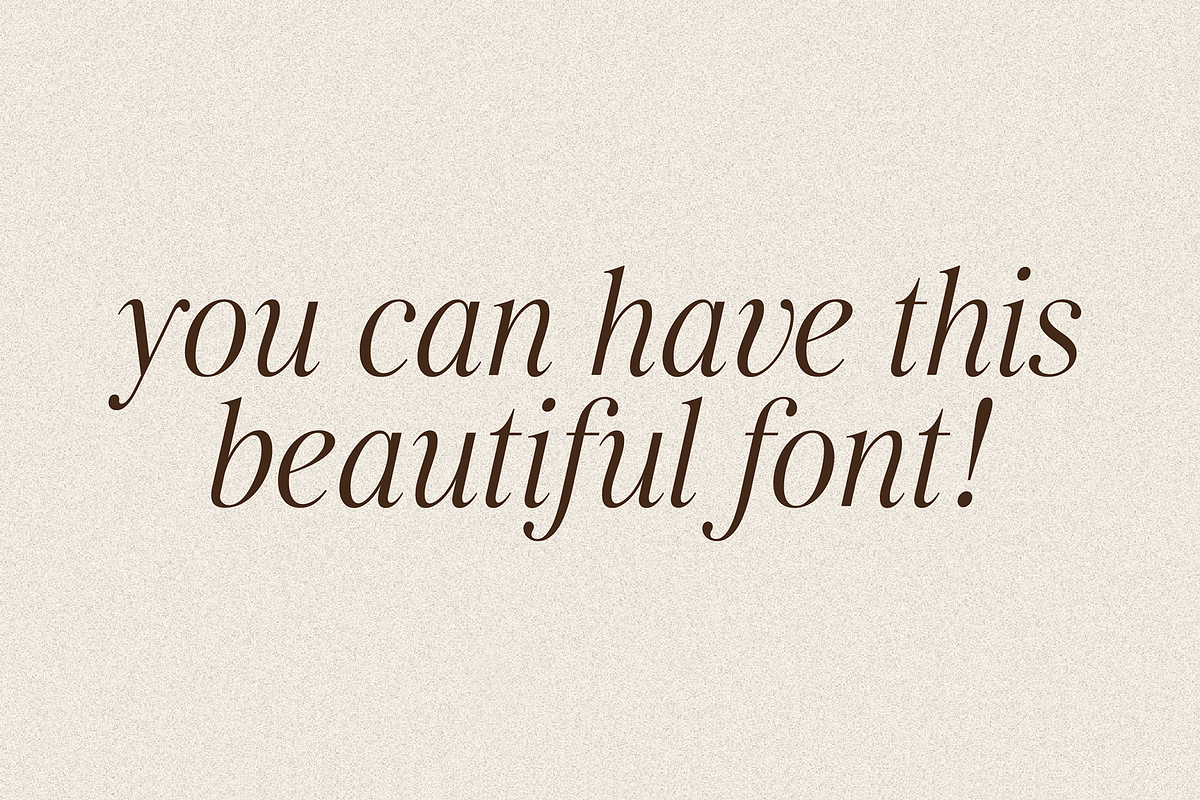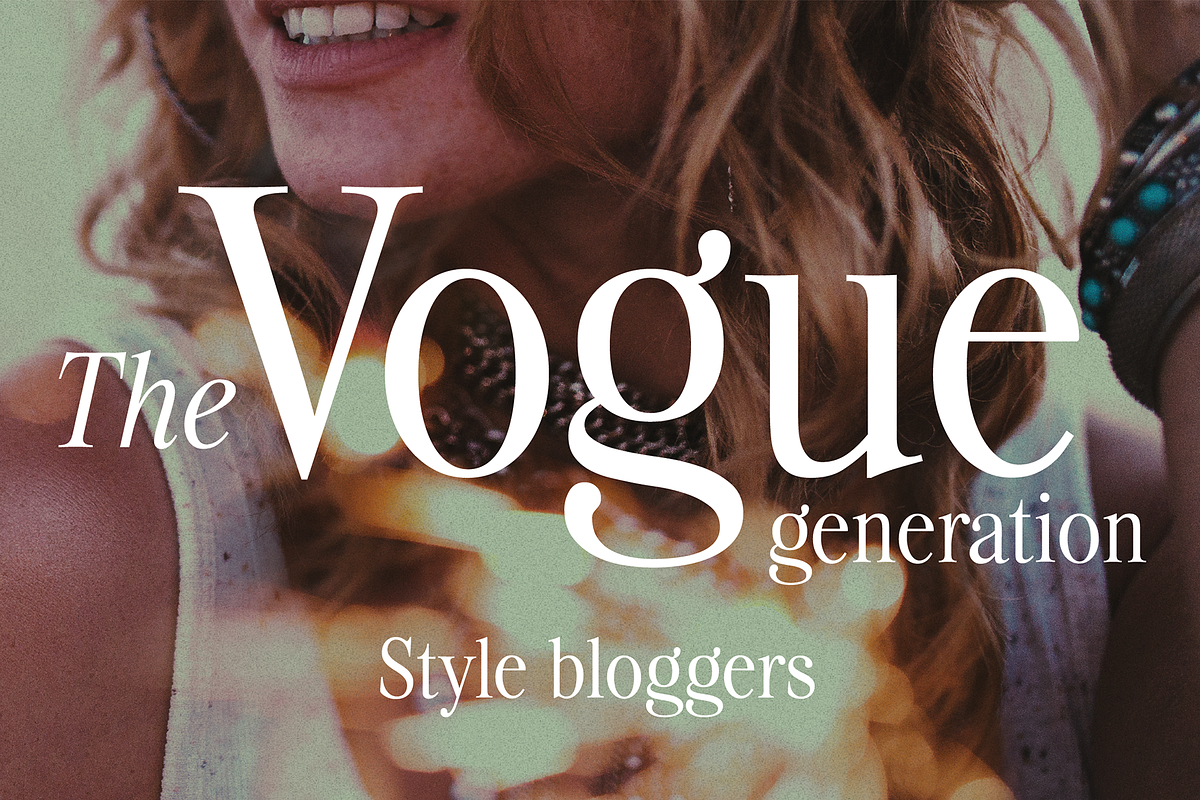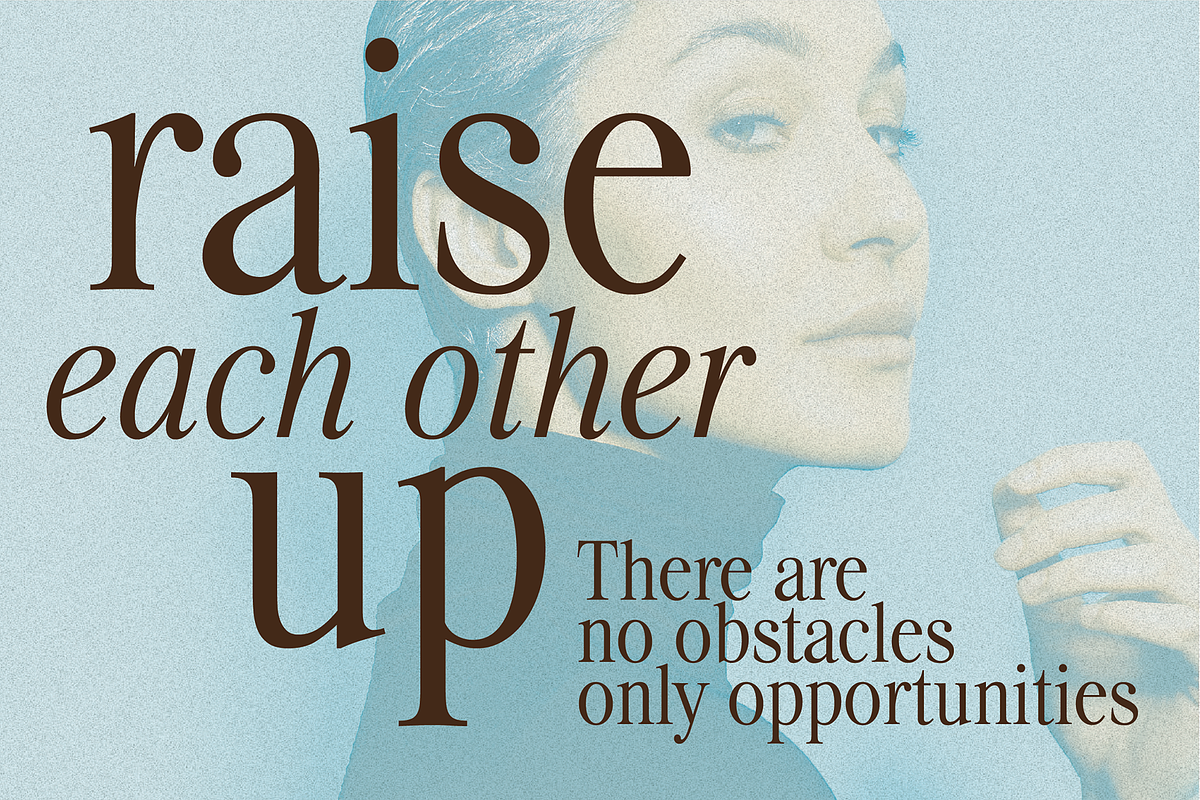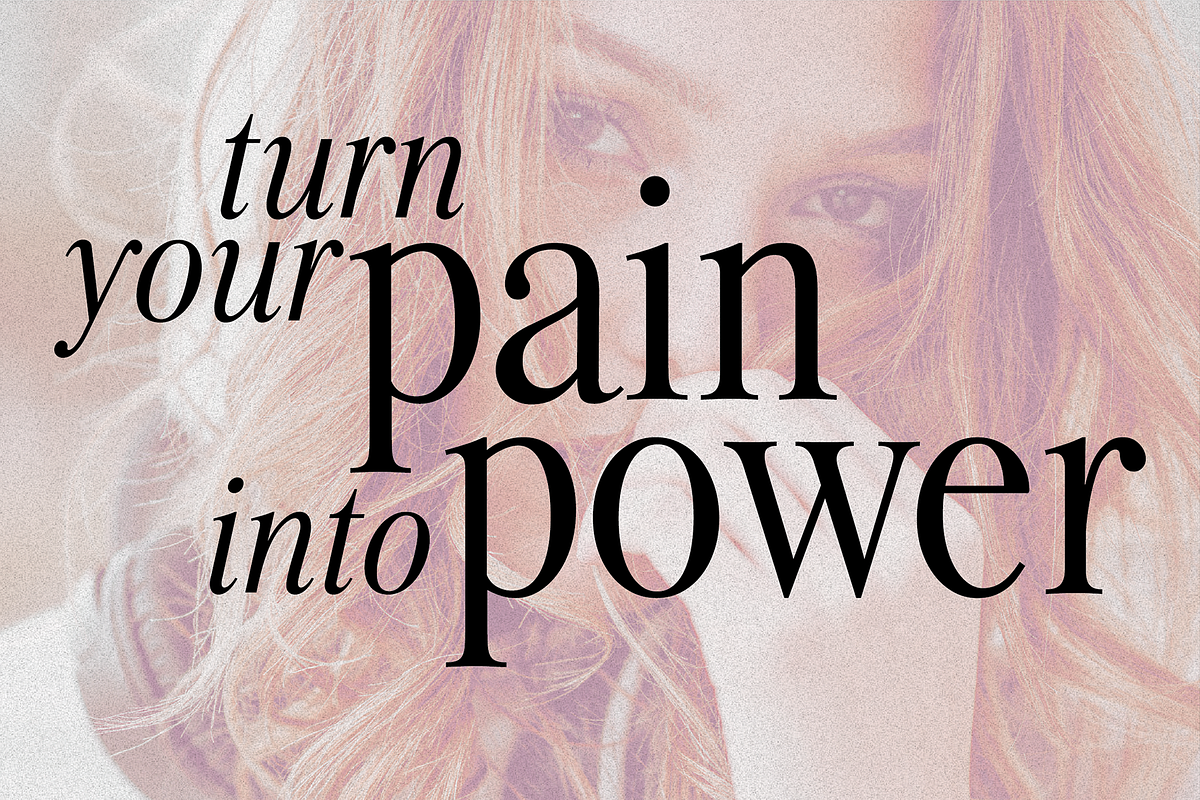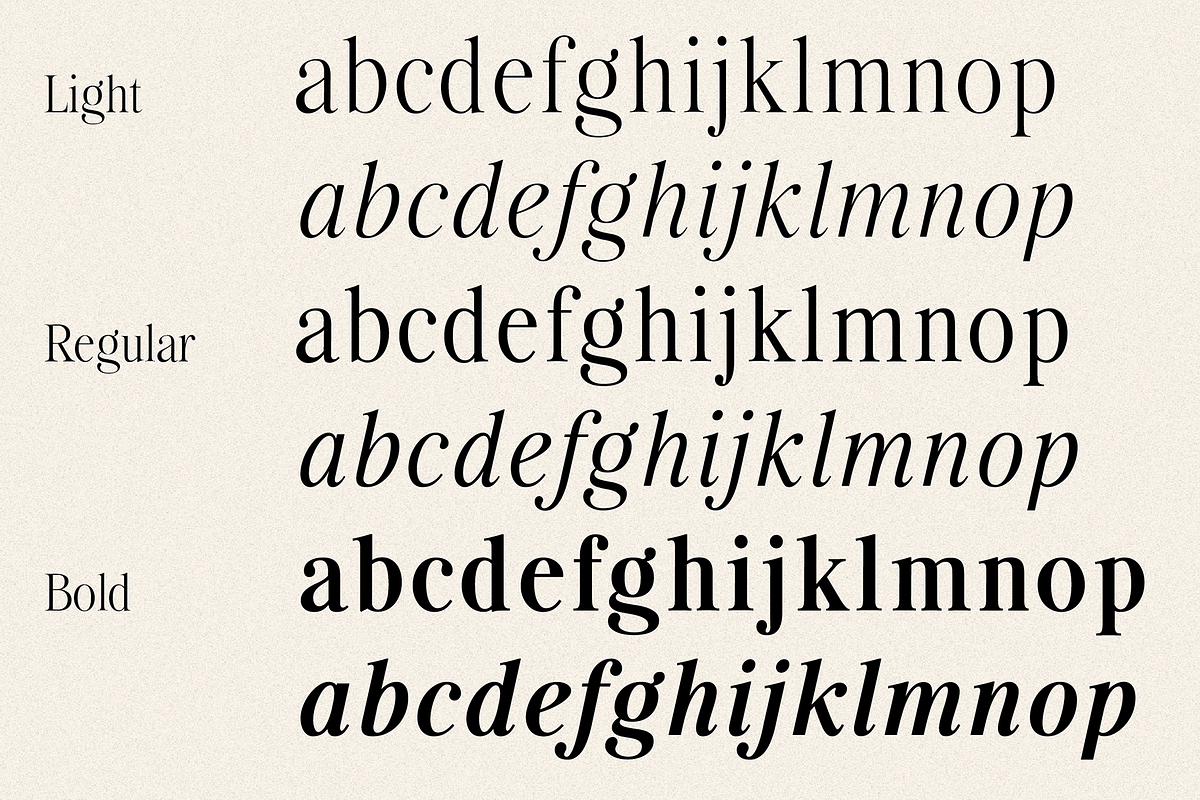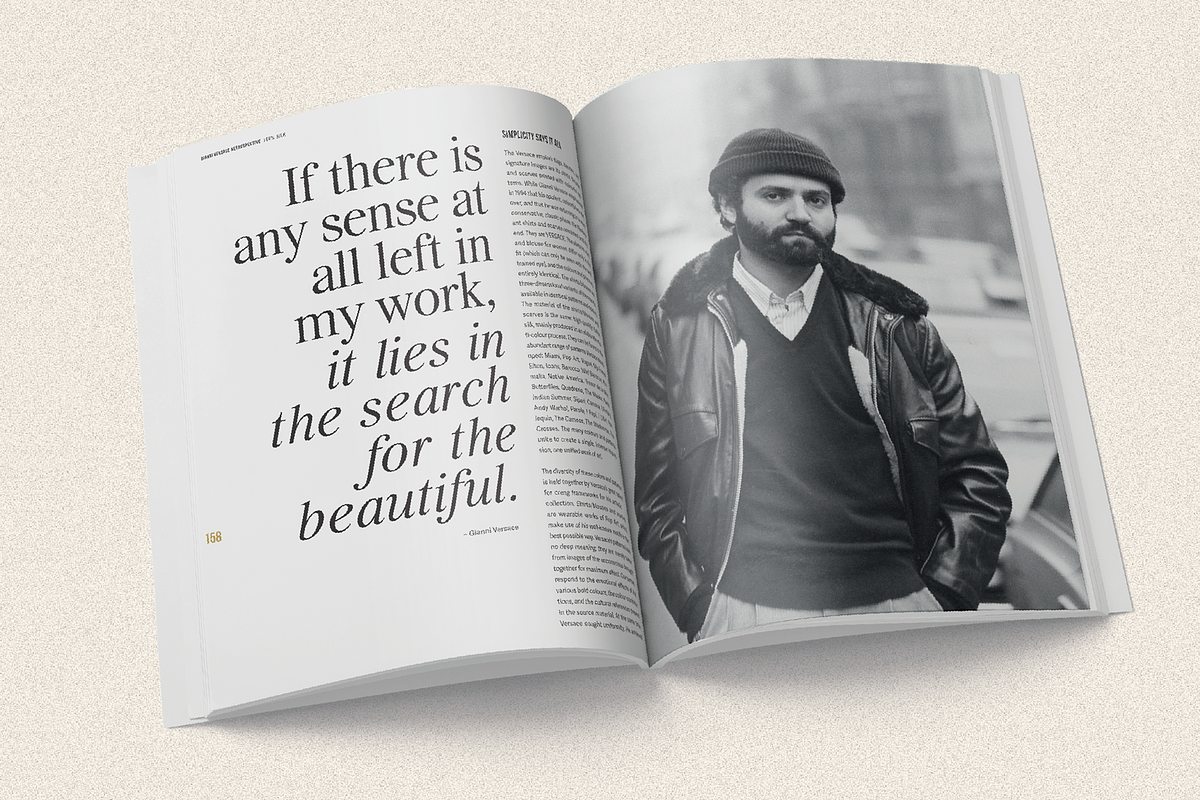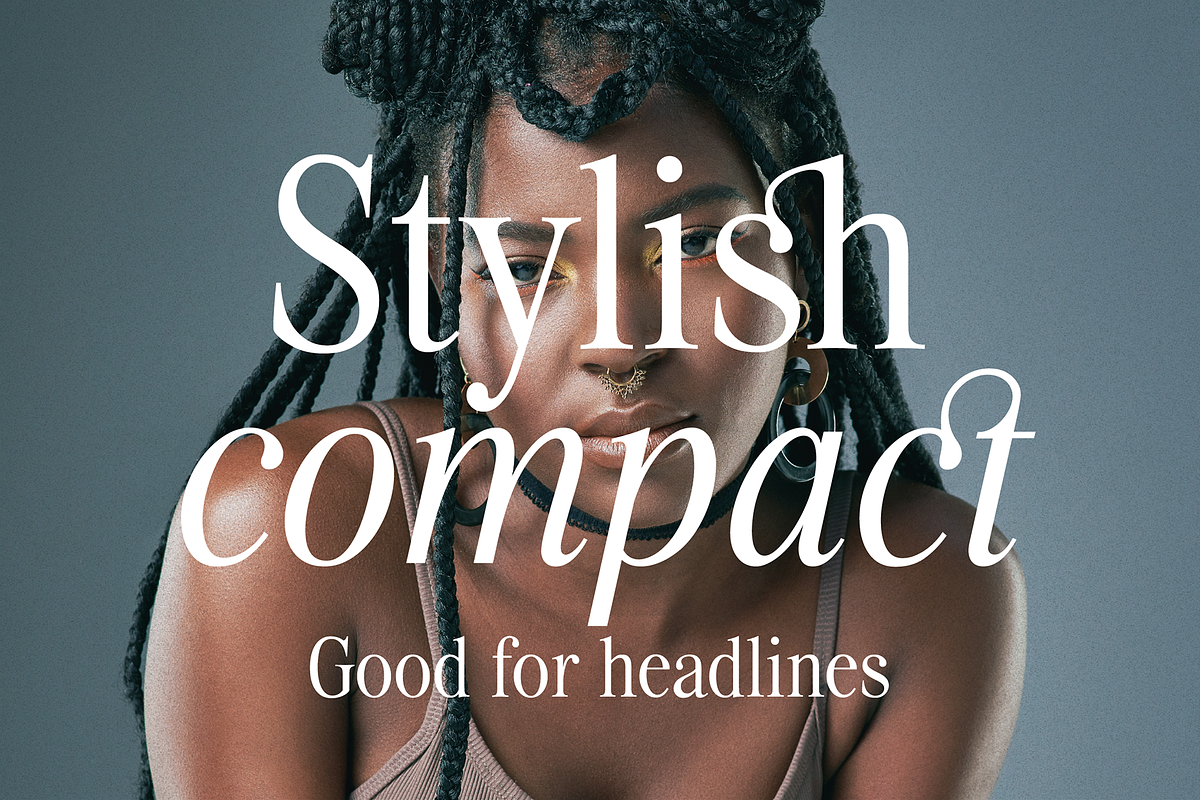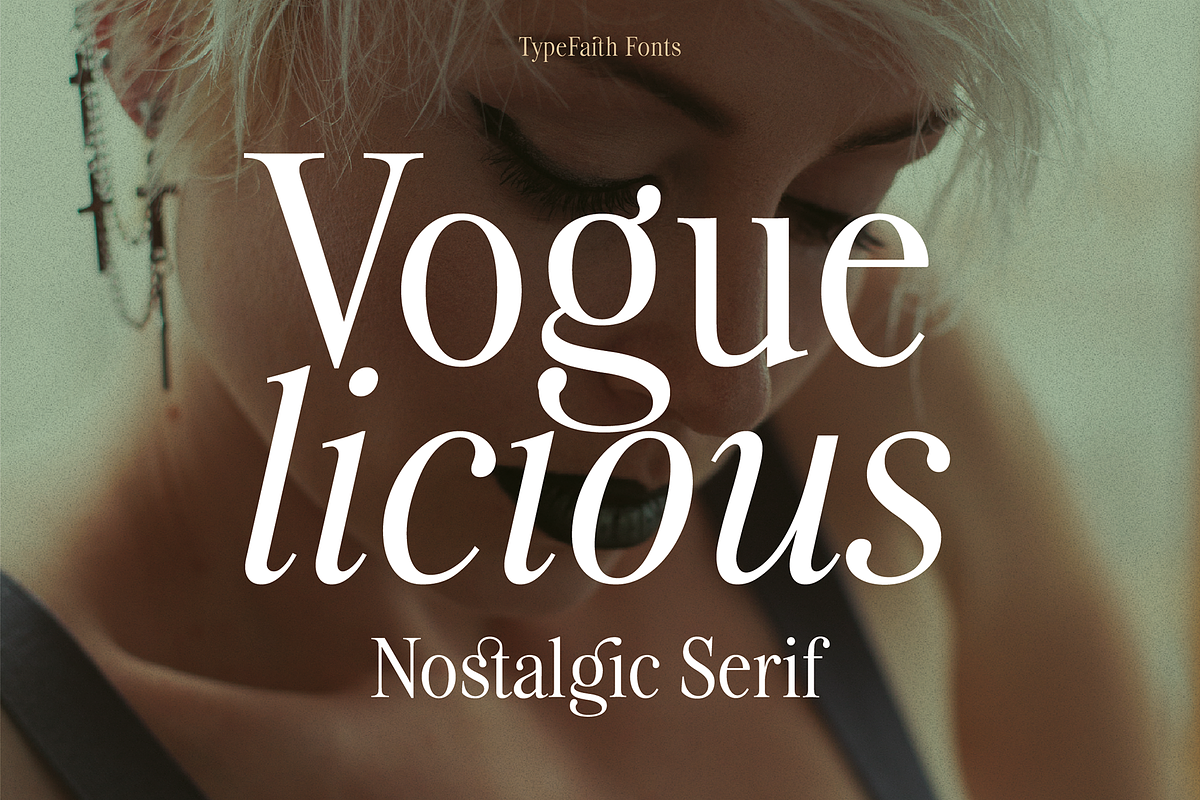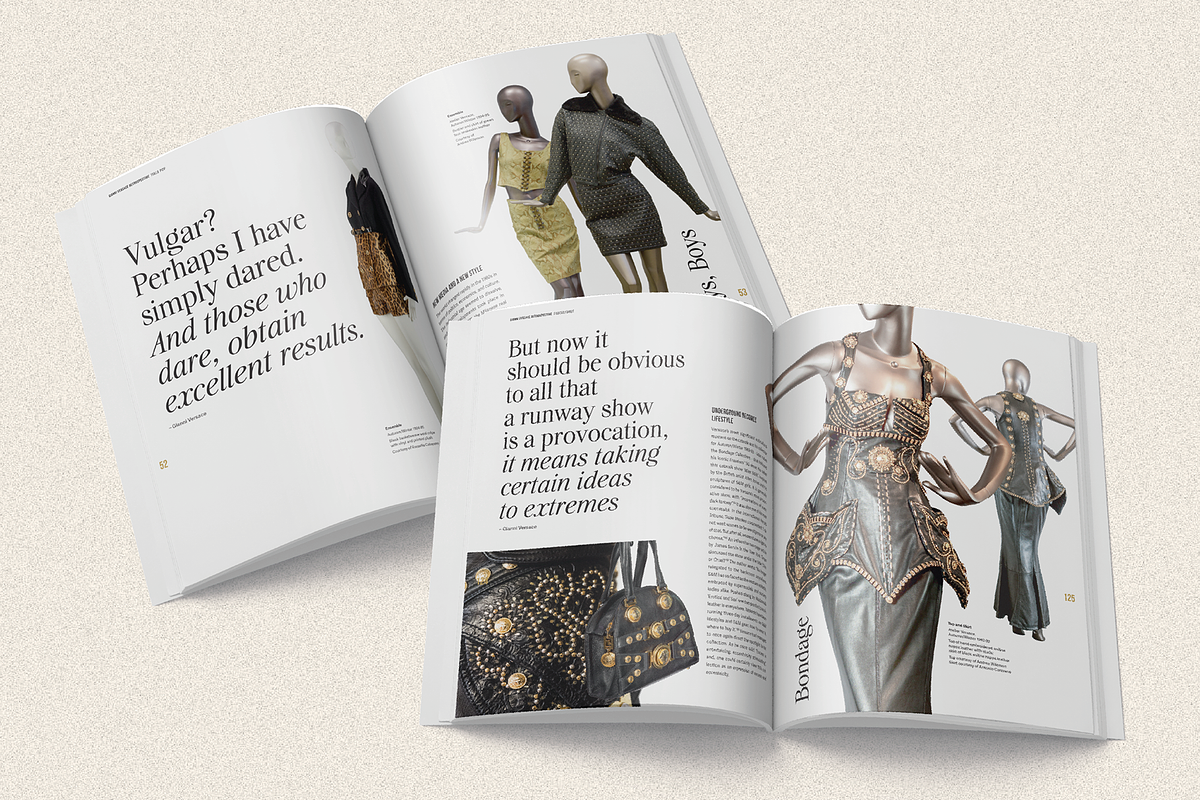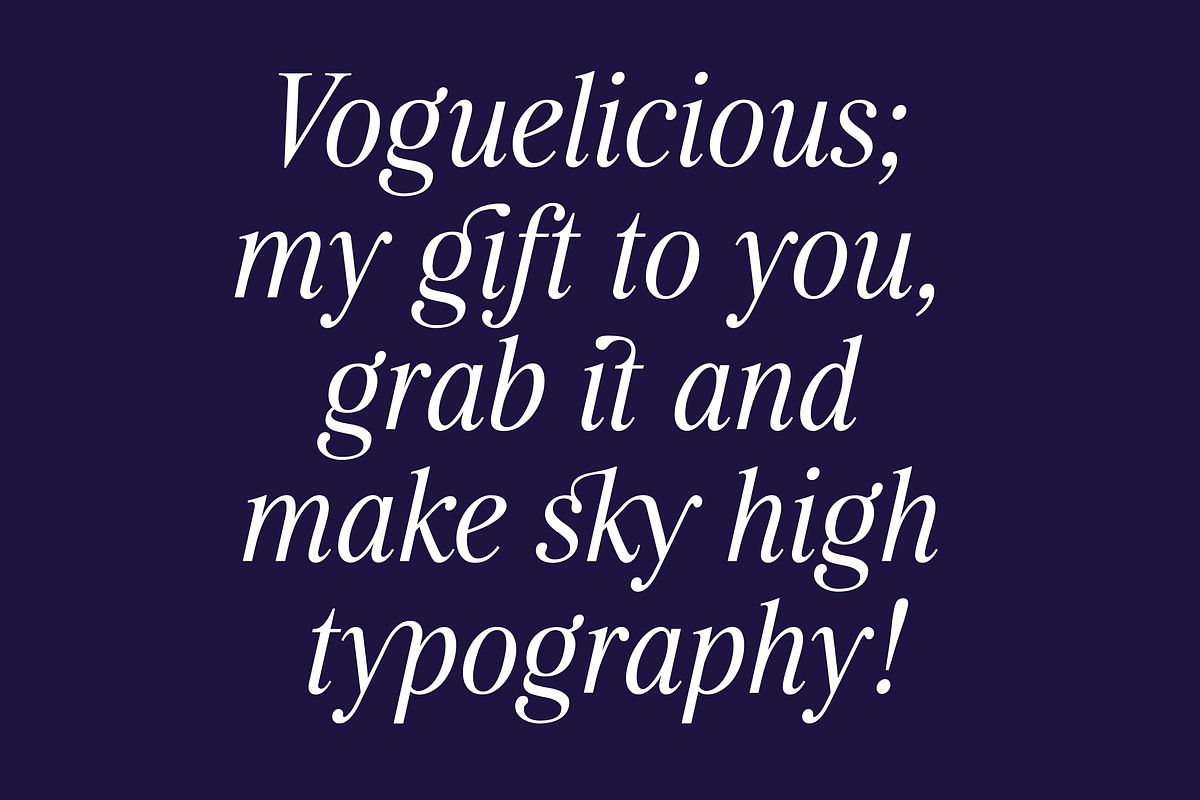
Voguelicious, Cozy Academia
Voguelicious is a classic and elegant serif font family that includes six styles with a chic vintage appearance and true Novel italics. Its compact design makes it very suitable for magazines and fashion projects. The font conveys the essence of French Cadre Noir dressage, intellectual elegance, cozy academia, and vintage fashion. Voguelicious is further enhanced by OpenType features such as ligatures and stylistic alternates. Voguelicious can be used in branding, logo designs, magazines, packaging, and fashion accessories. Designer: Leon Hulst Foundry: TypeFaith Fonts is the type desk of WAT designers in Utrecht, Netherlands. We create fonts that are useful for our design studio and for sharing with other designers.